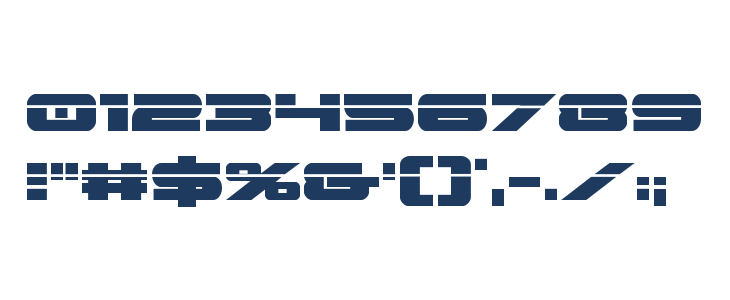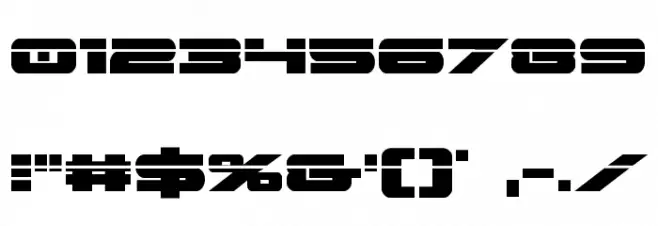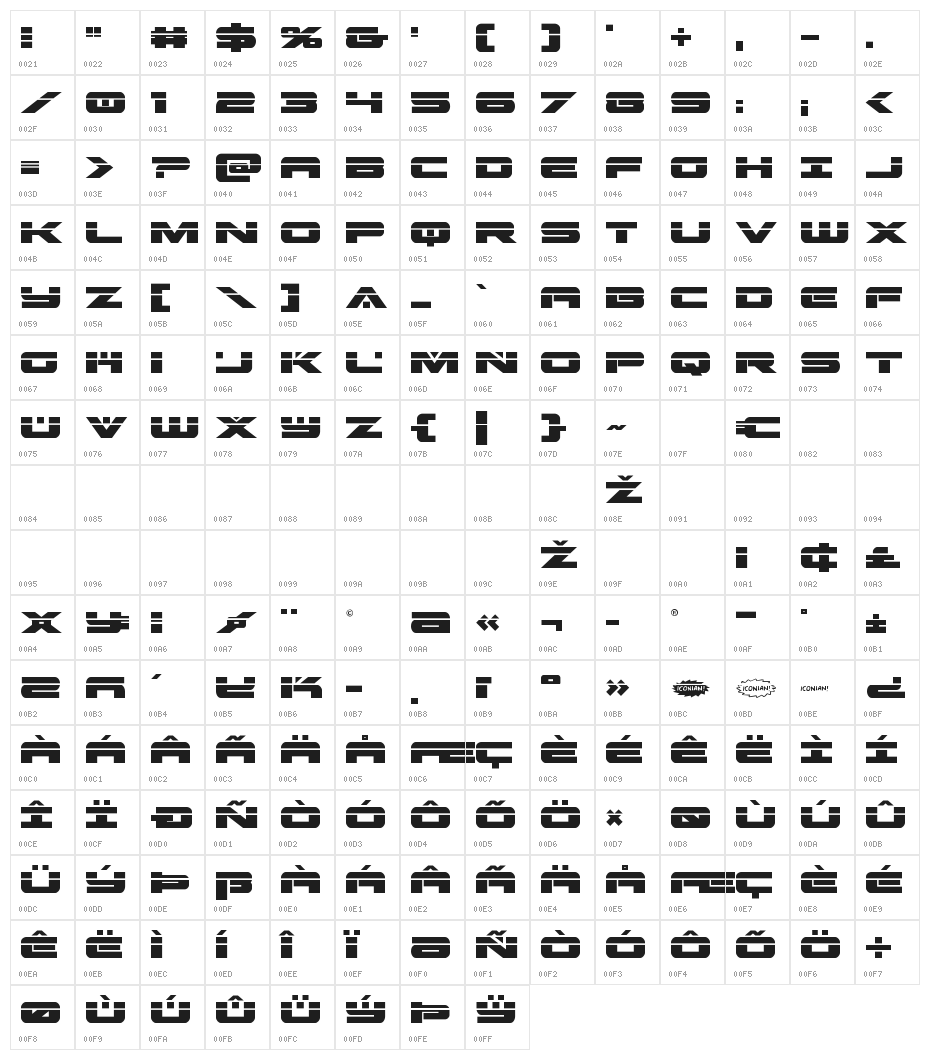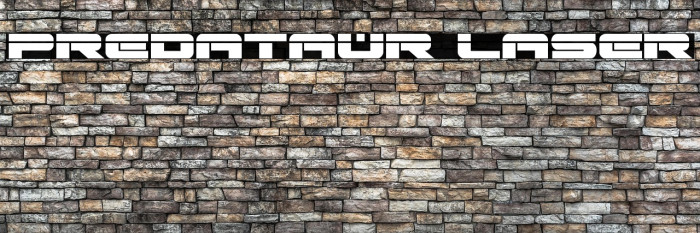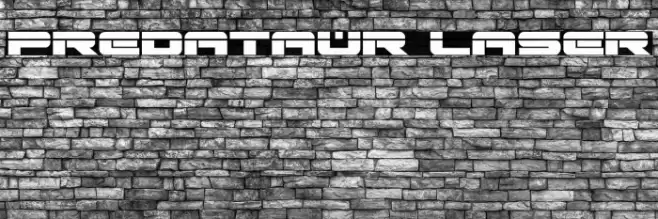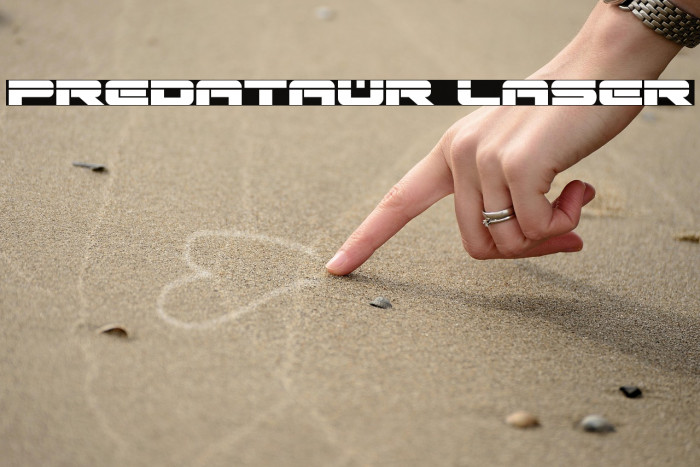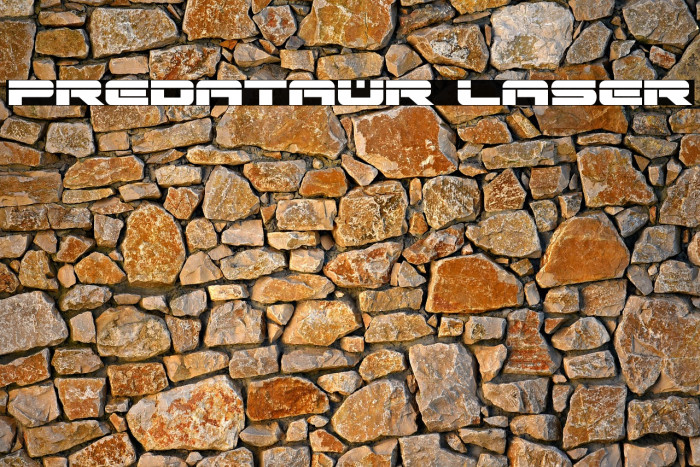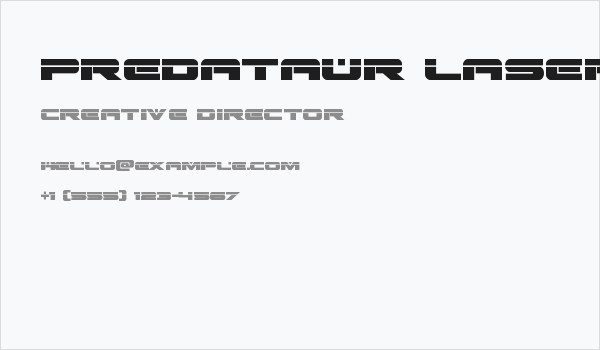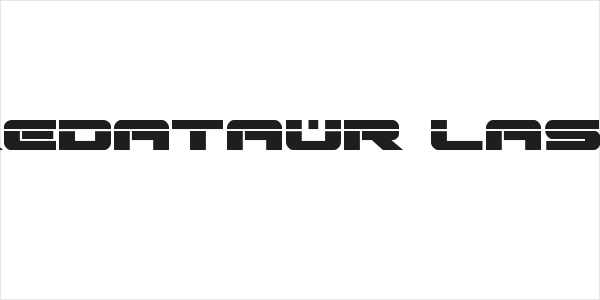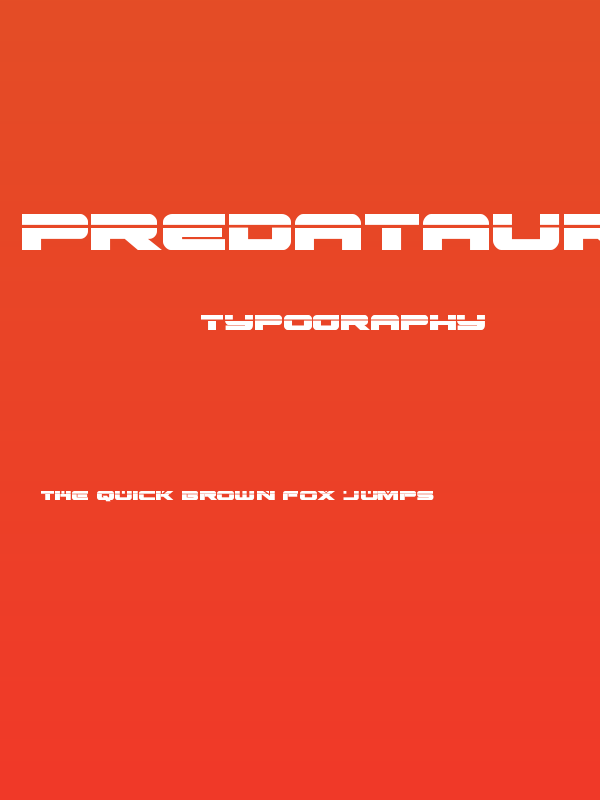
Predataur Laser Font
Predataur Laser Description
This font features a bold, futuristic design with a distinct geometric style. The characters are blocky and angular, with a strong presence that commands attention. The uppercase and lowercase letters maintain a consistent width, giving the font a uniform appearance. The numbers and special characters follow the same design principles, ensuring cohesion across all elements. The font's unique style is reminiscent of science fiction and technology themes, making it ideal for projects that require a modern and edgy look.
| Proposed Projects | Ideal for sci-fi themed posters, video game titles, technology branding, and futuristic event flyers. |